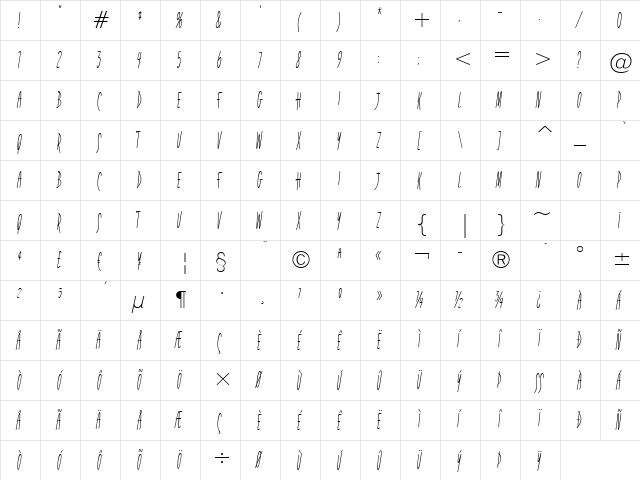
Fidelity Hour BTN Lt Regular
Design Context for Fidelity Hour BTN Lt Typeface
Fidelity Hour BTN Lt takes a measured approach to typography — its balanced proportions and neutral character make it a reliable workhorse for both digital and print work. Its slender proportions lend an understated elegance to any composition.